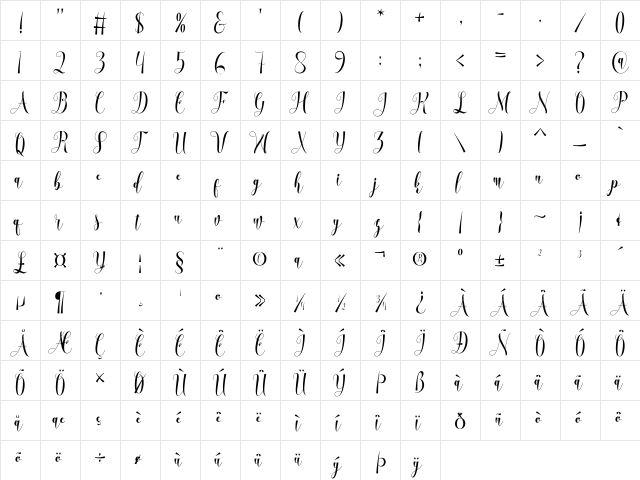
Advantages Regular Font Preview
Advantages Regular
Advantages Regular Font Details
| Foundry | Jhoen.studio |
Design Context for Advantages Typeface
Advantages is a composed and adaptable typeface that performs quietly and consistently across a wide range of design contexts.